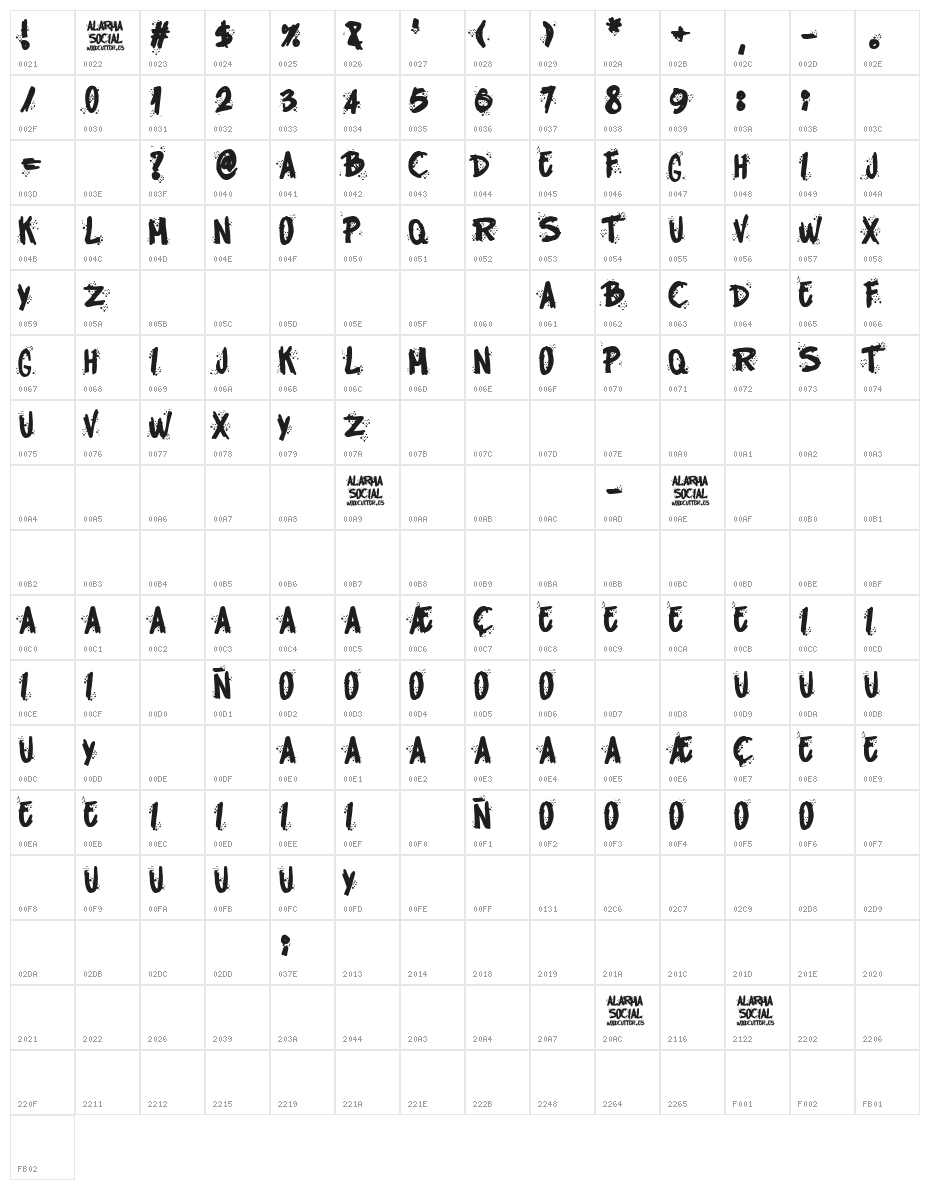
Alarma Social Font
Alarma Social Description
This font features a bold, graffiti-inspired style with a dynamic and energetic appearance. The characters are designed with a rough, textured edge, giving them a hand-painted look. The uppercase and lowercase letters maintain a consistent style, with a slightly irregular baseline that adds to the casual and rebellious feel. The numbers and special characters follow the same aesthetic, making the font versatile for various creative applications. The overall design is eye-catching and impactful, perfect for projects that require a bold statement.
| Overall Style | Modern, Urban |
| Proposed Projects | Ideal for street art designs, music album covers, event posters, and urban-themed branding. |